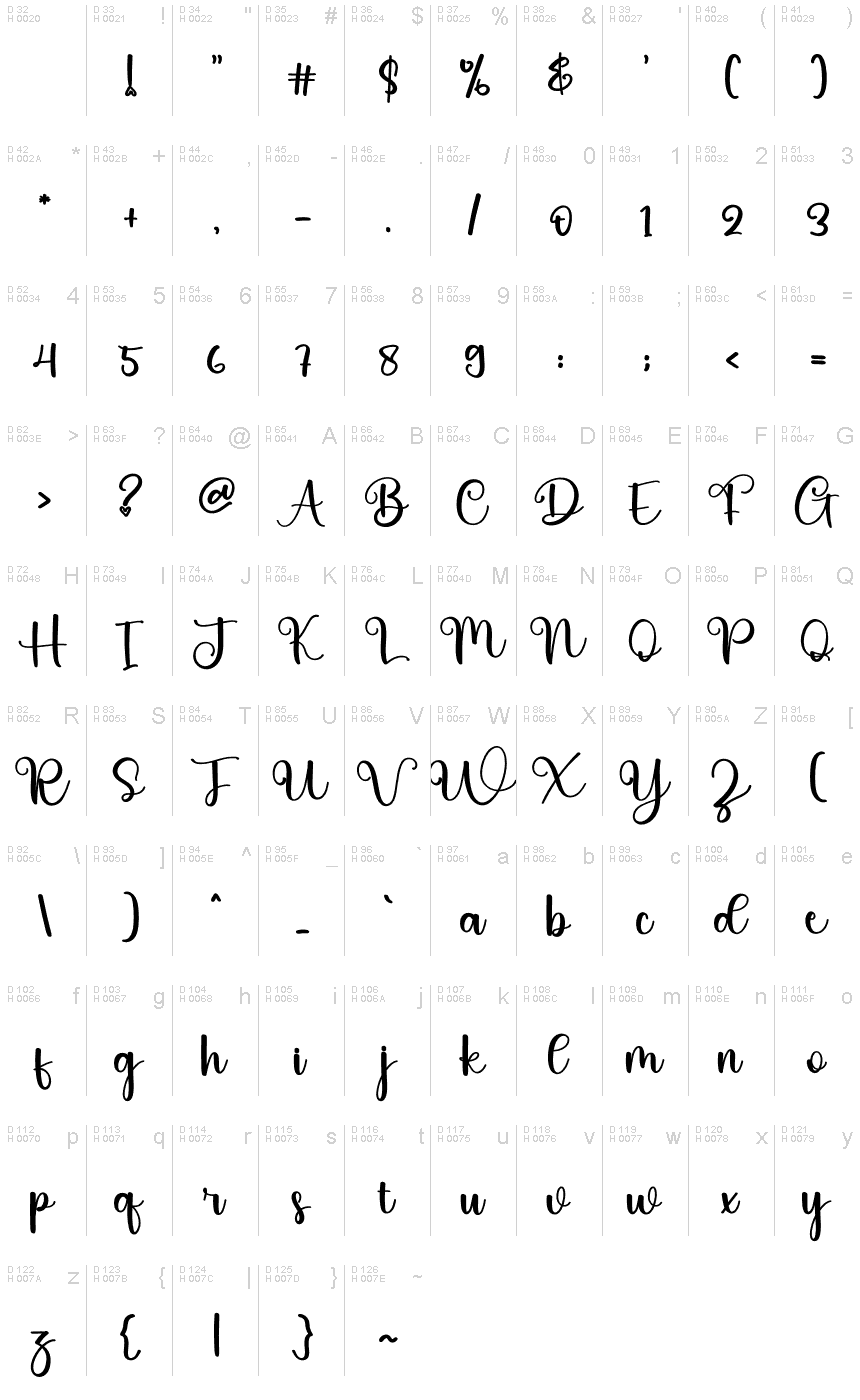
November
November, designed by Inermedia Studio, is a handwritten font that exudes a sense of personal touch and intimacy. Its flowing, cursive letters are reminiscent of classic calligraphy with a modern twist, making it both elegant and accessible. The fluidity of the strokes suggests a natural and effortless grace that lends itself to a wide range of creative applications.
The aesthetic appeal of November lies in its balance between sophistication and whimsy. Each character is crafted with care to ensure legibility while retaining the charming idiosyncrasies typical of hand-drawn text. This makes it an excellent choice for invitations, branding, advertising materials, and any project seeking to convey authenticity and warmth.
November's style bridges the gap between traditional penmanship and contemporary design needs. It stands out for its ability to add personality to digital designs while maintaining clarity and readability. Whether used for headlines or body text, November is versatile enough to enhance the message without overpowering it.
In summary, November's distinctive handwritten style offers designers a tool for infusing their work with characterful elegance – perfect for those seeking to impart an artisanal feel within various creative contexts.